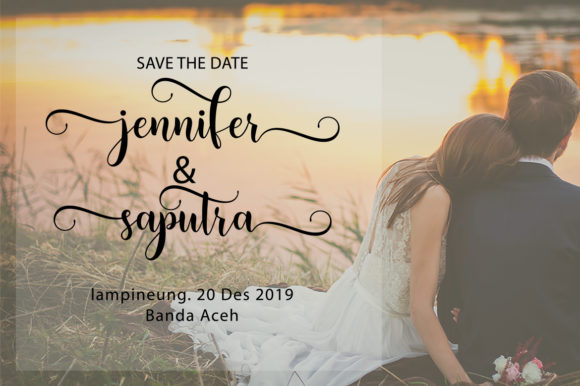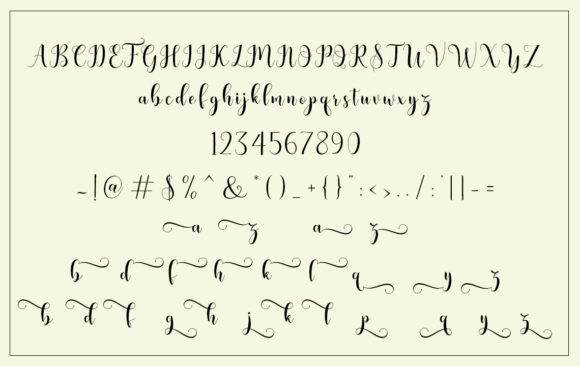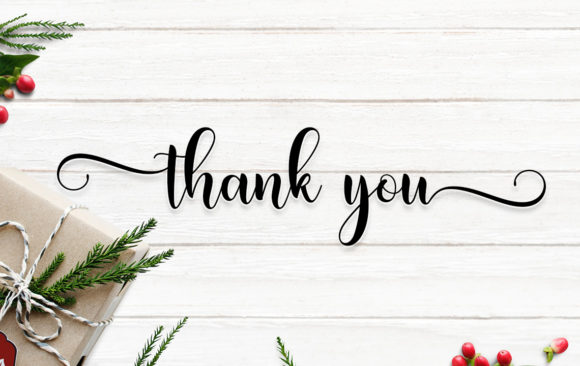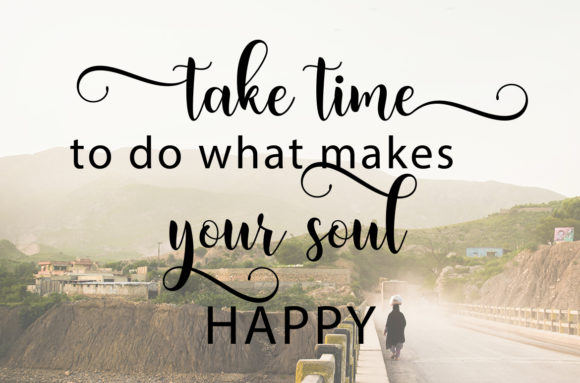
Unleash Your Creativity with the Bertilda Script Font
Have you ever found yourself stuck in a design rut, searching for the perfect font to elevate your project? I know I have! It’s those moments when everything comes together – the colors, the layout, the typography – and suddenly, your design stands out from the crowd. That’s exactly what the Bertilda Script Font is designed to do.
With its beautiful, flowing script, the Bertilda Script Font is perfect for adding a touch of elegance and sophistication to any design project. Whether you’re creating a wedding invitation, a logo, or a social media graphic, this font is sure to turn heads. As a designer, you know how valuable it is to have a versatile and high-quality font in your toolkit – and the Bertilda Script Font is just that.
- Unique Characteristics: Handwritten, elegant, and cursive script font with a touch of sophistication and refinement
Bertilda Script Font Review
I recently had the chance to work with the Bertilda Script Font, and I must say, it’s a beautiful addition to any design project. ✨ The font’s elegant and sophisticated feel is perfect for creating a high-end, luxurious atmosphere. It’s particularly well-suited for wedding invitations, branding, and other high-end marketing materials.
- Unique and elegant design: Bertilda Script Font is a great choice for those looking to add a touch of sophistication to their designs.
- Perfect for wedding invitations and branding: The font’s luxurious feel makes it ideal for high-end marketing materials.
However, there are a few limitations to consider. ⚠️ The font’s script design can be a bit difficult to read for those with visual impairments, and it may not be suitable for body text or large blocks of text. Additionally, the font’s complexity may make it challenging to use in certain design software.
Overall, I’m impressed with the Bertilda Script Font. It’s a beautiful and sophisticated addition to any design project, and its elegant design makes it perfect for high-end marketing materials. While it may have some limitations, the font’s unique design and high-quality vector files make it a great choice for designers looking to add a touch of luxury to their work.
Bertilda Script Font is perfect for:
- Quote graphics and social media posts
- Editorials and magazine layouts
Remember to pair Bertilda Script with a clean and simple font for maximum impact.
Alternatives to Bertilda Script Font
Playfair Display is a luxurious, high-end script font that exudes elegance and sophistication. It is perfect for use in high-end branding, invitations, and special occasions. Compared to Bertilda Script Font, Playfair Display has a more refined and delicate touch, making it suitable for applications where a touch of luxury is required.
Lobster is a bold and playful script font that is perfect for use in casual and creative applications. It is ideal for headings, titles, and emphasis in digital and print media. Compared to Bertilda Script Font, Lobster has a more casual and relaxed feel, making it suitable for applications where a fun and carefree vibe is required.
Great Vibes is a modern and elegant script font that is perfect for use in creative and artistic applications. It is ideal for headings, titles, and emphasis in digital and print media. Compared to Bertilda Script Font, Great Vibes has a more fluid and dynamic feel, making it suitable for applications where a touch of modernity is required.